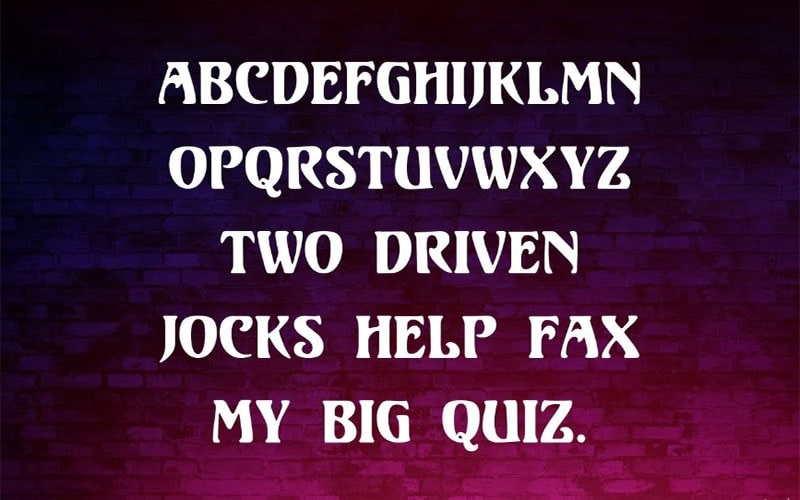
Unicorn Font is a whimsical and enchanting typeface that brings a touch of magic to any design project. Created by the talented designer Nicky Laatz. This font captures the essence of fantasy and wonder.
Making it an ideal choice for a variety of creative applications. Unicorn Font stands out with its playful, hand-drawn aesthetic, evoking the charm and beauty of mythical creatures and fairy tales.
It is the brainchild of Nicky Laatz, a renowned designer known for her playful and imaginative typefaces. Laatz’s work often blends hand-crafted elements with modern design sensibilities.
Resulting in fonts that are both unique and highly versatile. With Unicorn Font, Laatz has crafted a typeface that is perfect for conveying a sense of magic and wonder.
Unicorn Font
| Font Name: | Unicorn Font |
| Style: | Fancy, Retro, Typeface |
| Font Designer: | Nicky Laatz |
Unicorn Font is available in a single, highly stylized form that emphasizes whimsical, hand-drawn letterforms. Its enchanting aesthetic makes it particularly suitable for branding, web design, craft projects, and many more.
Perfect for storybook titles, covers, and illustrations where a magical touch is needed. Great for DIY crafts, scrapbooking, and handmade goods, adding a personal and whimsical touch.
Adds a unique, magical touch to websites and digital content, making them stand out with a distinctive style. Infuse your design projects with the magic and wonder of Unicorn Font.